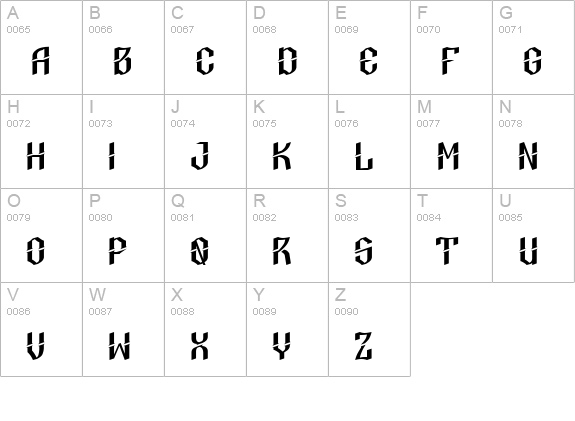
Jalompo Font Details
Introducing Jalompo font - a unique and modern typeface that is sure to make your designs stand out! With its sleek and stylish design, Jalompo is perfect for a wide range of projects, from branding to packaging to social media graphics.
What sets Jalompo apart is its versatility - it looks great in both large headlines and small body text. The clean lines and sharp edges give Jalompo a contemporary feel that is both eye-catching and easy to read.